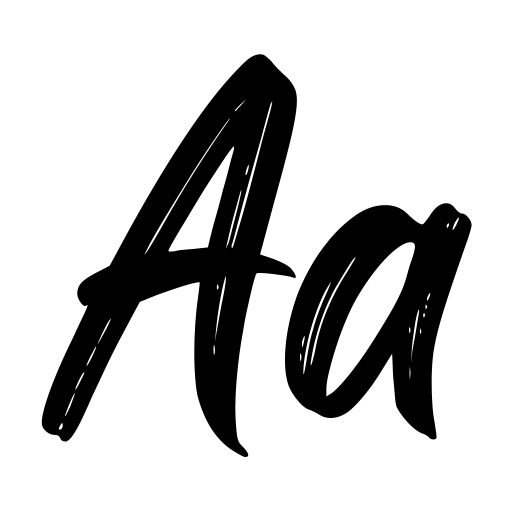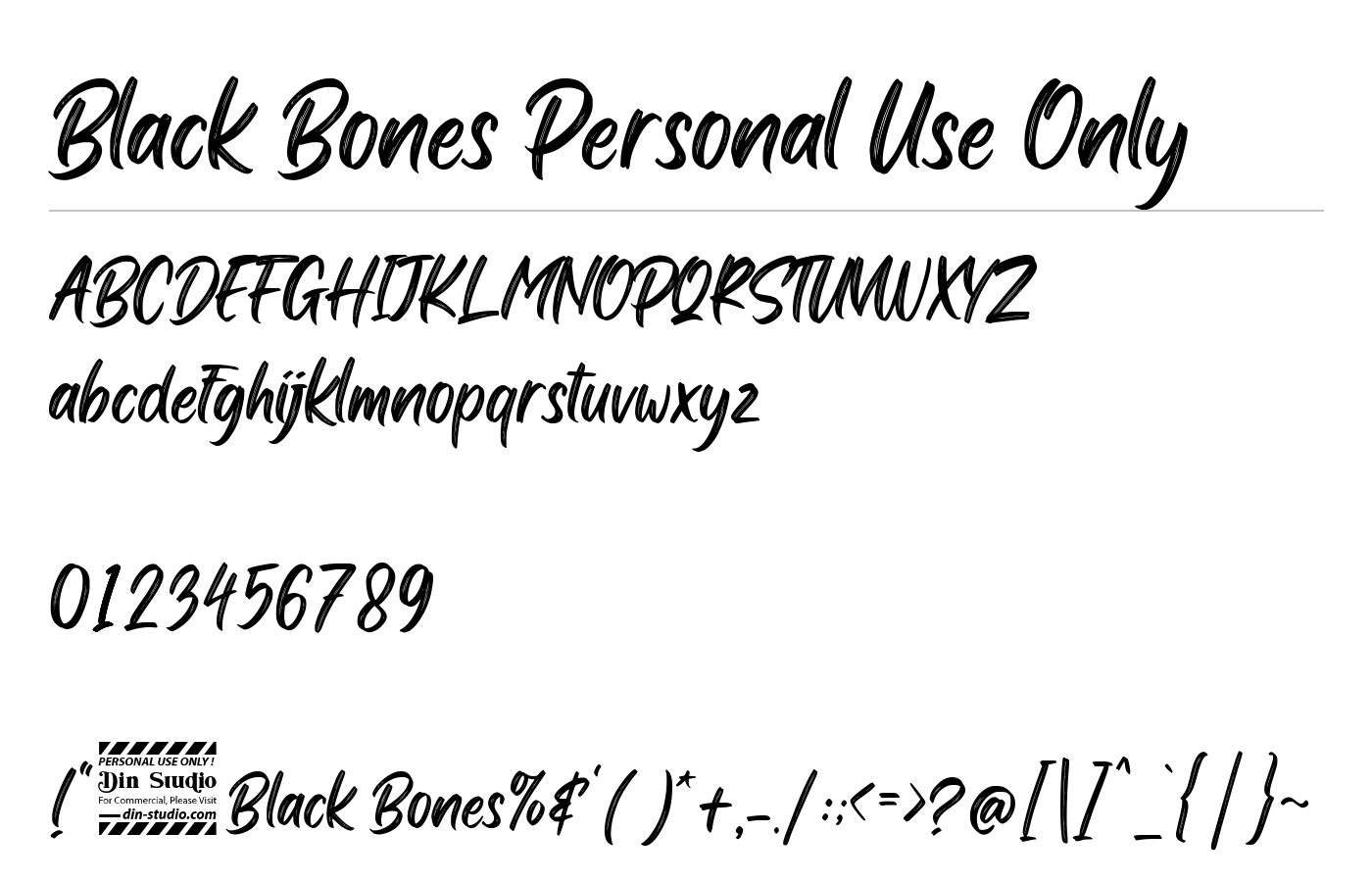
Black Bones Personal Use Only is a lively, brush-script font with a bold, hand-painted feel that adds personality and energy to any design. Its fluid, slightly irregular strokes give it a casual yet artistic vibe, making it ideal for creative projects, branding, and headlines that want to stand out with a friendly, authentic touch. This font works best where a dynamic, handcrafted look is needed, such as logos, posters, and social media graphics.
Black Bones Personal Use Only Font
About Black Bones Personal Use Only Font
| Font family | Black Bones Personal Use Only Font |